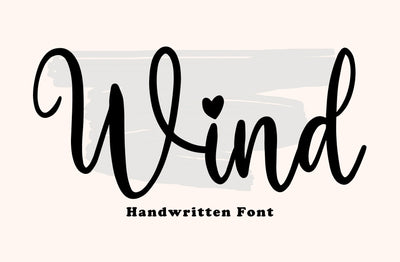
Wind - handwritten font
Wind is a sweet and cute handwritten font. Fall in love with its incredibly versatile style and use it to create beautiful wedding invitations, designs on the shirt, beautiful stationary art, eye-catching social media posts and more!